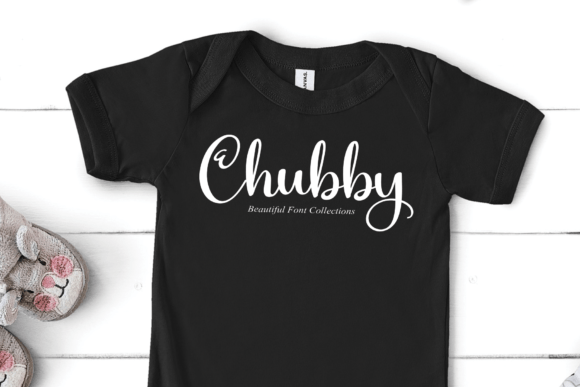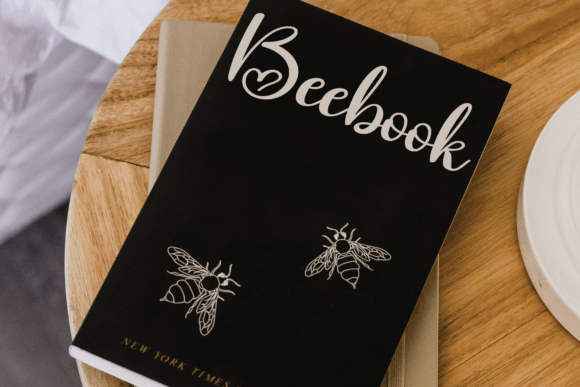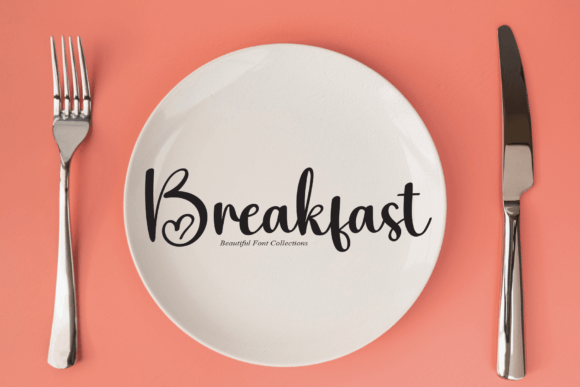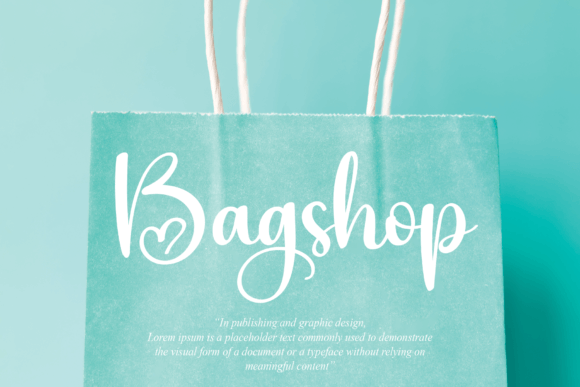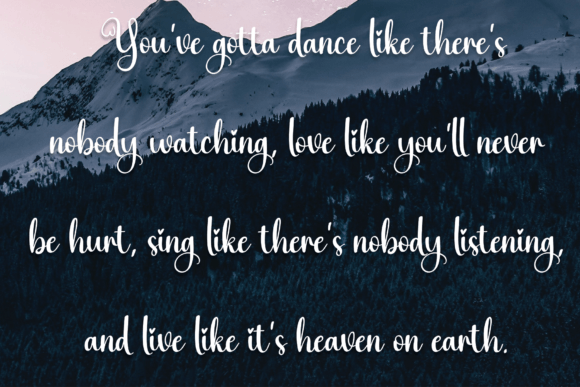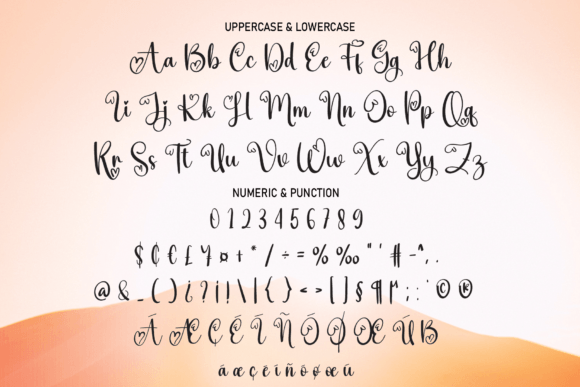
Introducing Beaming Font: The Perfect Handwritten Style for Your Creative Projects
Are you a designer, crafter, or DIY enthusiast looking for a unique and elegant handwritten font to elevate your creative projects? Look no further than Beaming Font! Beaming’s latest style letters are perfect for adding a personal touch to wall displays, wedding invitations, social media post logos, advertisements, product packaging, product designs, labels, photography, watermarks, invitations, stationery, and any project that requires a handwritten taste.
What is Beaming Font?
Beaming Font is a beautifully crafted handwritten font that exudes elegance and sophistication. Its unique and flowing style makes it perfect for a wide range of creative projects, from formal wedding invitations to social media graphics and product packaging. With Beaming Font, you can add a touch of personality and whimsy to your designs, making them stand out from the crowd.
Key Features of Beaming Font
- Handwritten style: Beaming Font features a beautiful, handwritten style that adds a personal touch to any project.
- Elegant and sophisticated: The font’s flowing style and elegant lettering make it perfect for formal and informal projects alike.
- Versatile: Beaming Font can be used for a wide range of creative projects, from wall displays and wedding invitations to social media graphics and product packaging.
Uses for Beaming Font
Beaming Font is perfect for a wide range of creative projects, including:
- Wall displays: Add a touch of elegance to your wall displays with Beaming Font.
- Wedding invitations: Make your wedding invitations truly special with Beaming Font’s beautiful handwritten style.
- Social media post logos: Elevate your social media graphics with Beaming Font’s unique and flowing style.
- Advertisements: Add a touch of sophistication to your advertisements with Beaming Font.
- Product packaging: Make your product packaging stand out with Beaming Font’s elegant and handwritten style.
- Product designs: Add a personal touch to your product designs with Beaming Font.
- Labels: Create beautiful and elegant labels with Beaming Font.
- Photography: Add a touch of whimsy to your photography with Beaming Font’s beautiful handwritten style.
- Watermarks: Create elegant and sophisticated watermarks with Beaming Font.
- Invitations: Make your invitations truly special with Beaming Font.
- Stationery: Elevate your stationery with Beaming Font’s beautiful handwritten style.
Why Choose Beaming Font?
There are many reasons why Beaming Font is the perfect choice for your creative projects. Here are just a few:
- Unique and elegant style: Beaming Font features a unique and elegant handwritten style that sets it apart from other fonts.
- Versatile: Beaming Font can be used for a wide range of creative projects, making it a great addition to any designer’s or crafter’s toolkit.
- High-quality: Beaming Font is a high-quality font that is designed to deliver exceptional results.